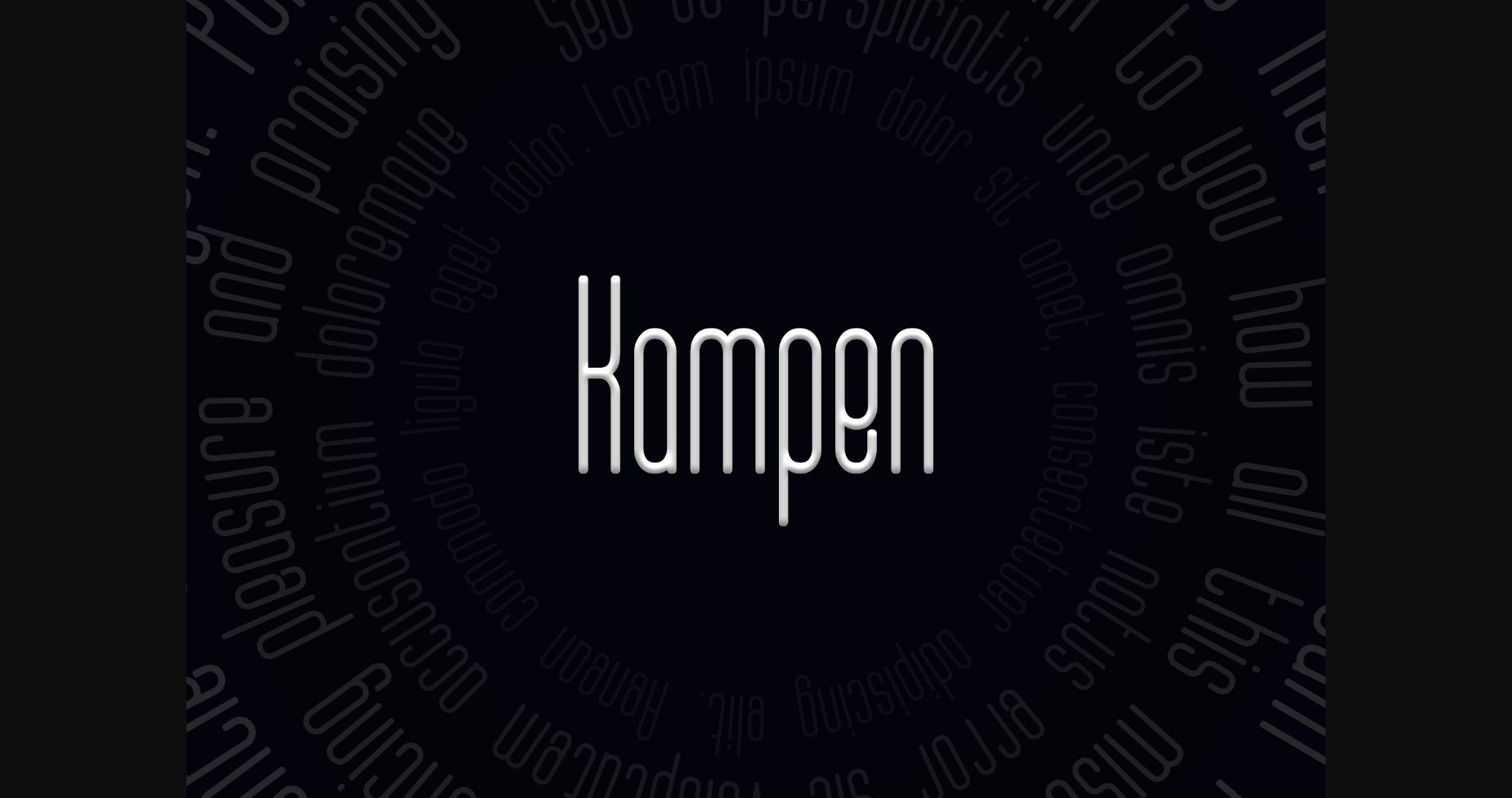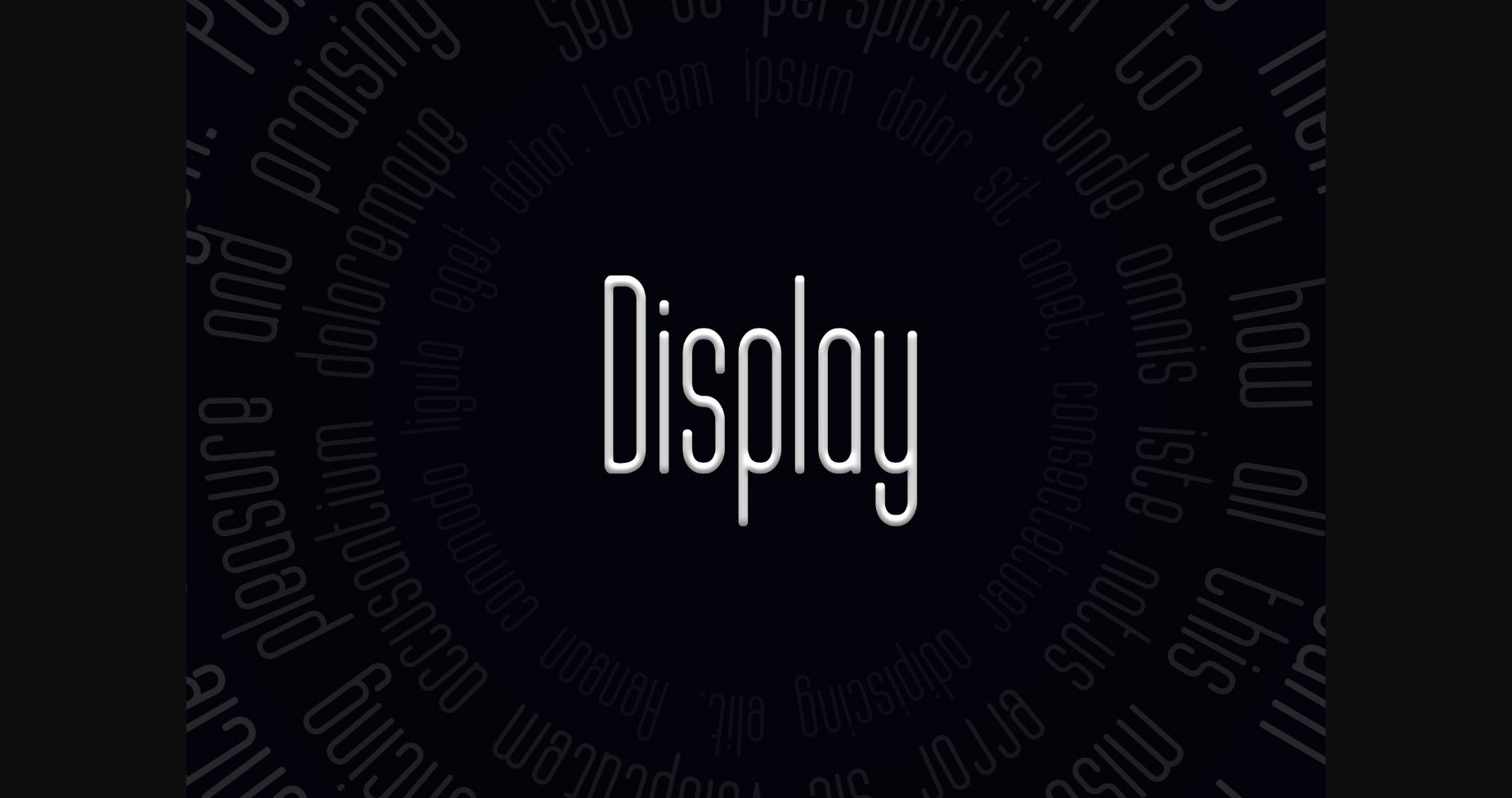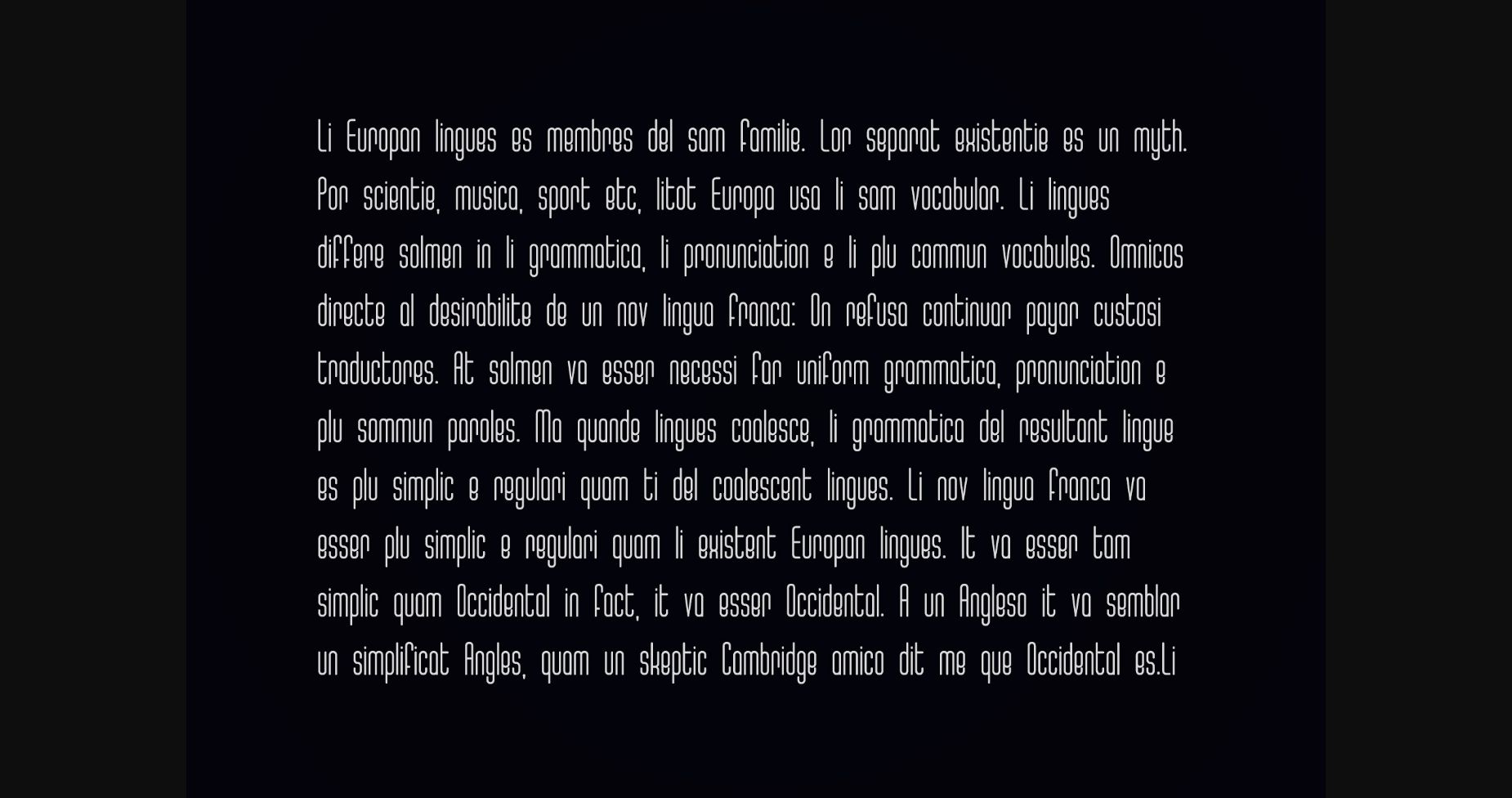
About Kampen Font
Kampen is a minimal and neat sans serif font. It can easily be matched to an incredibly large set of projects, so add it to your creative ideas and notice how it makes them stand out!